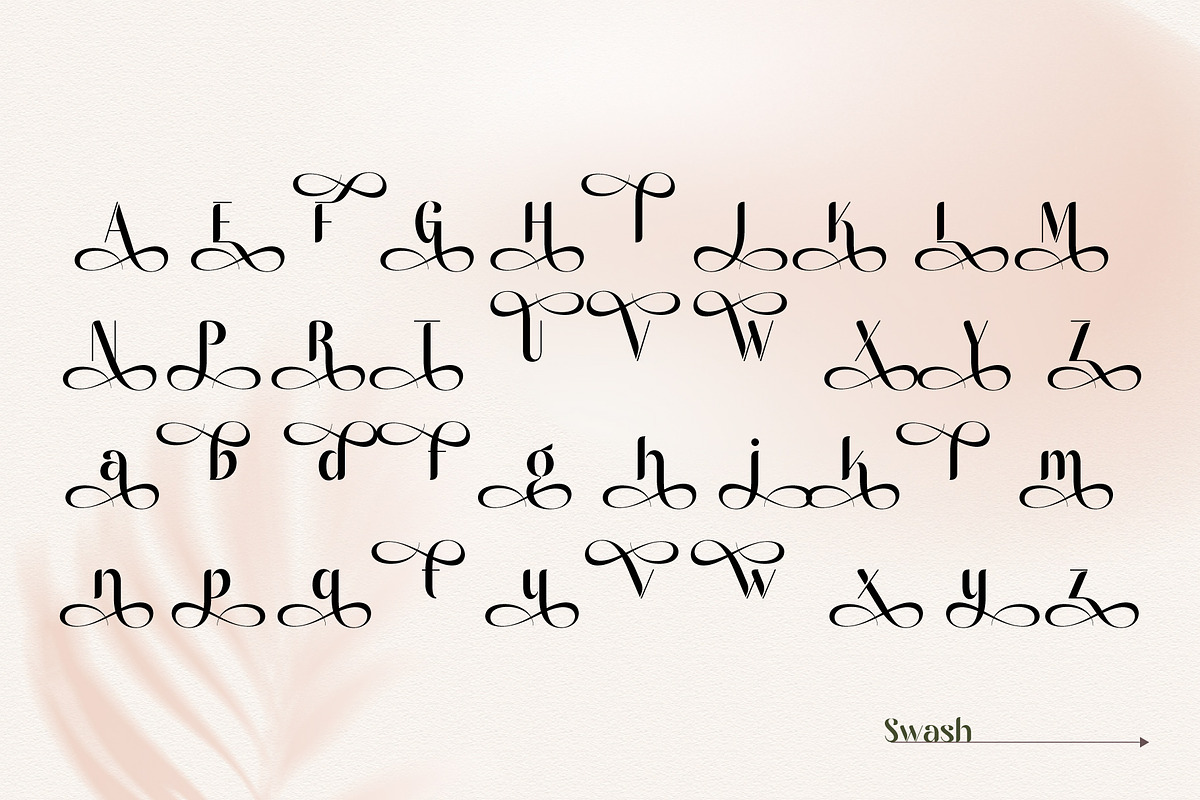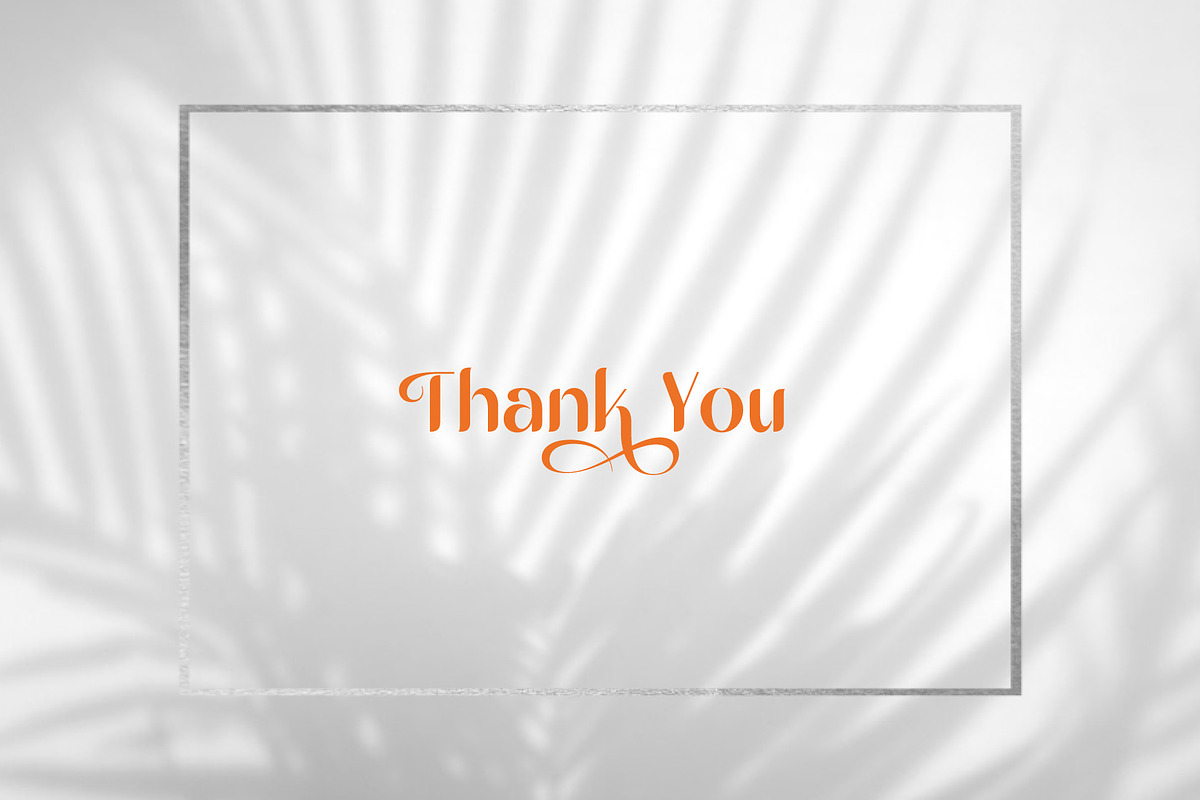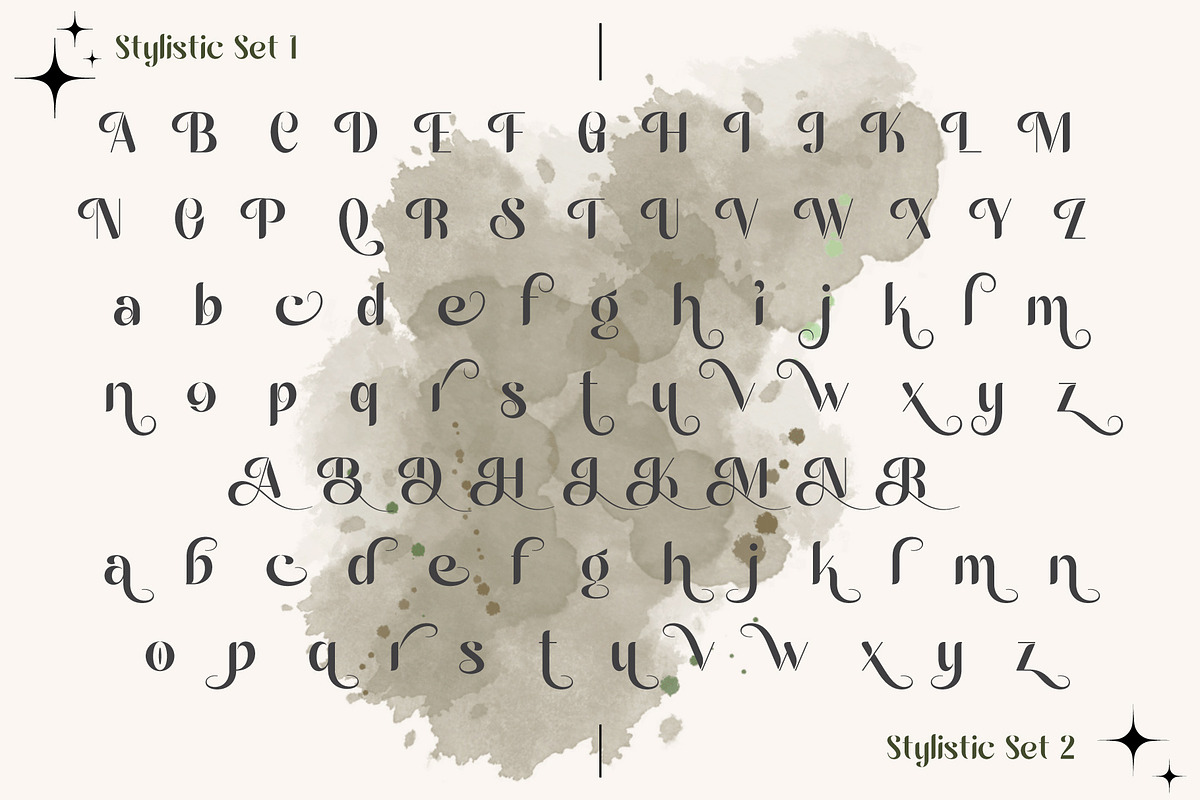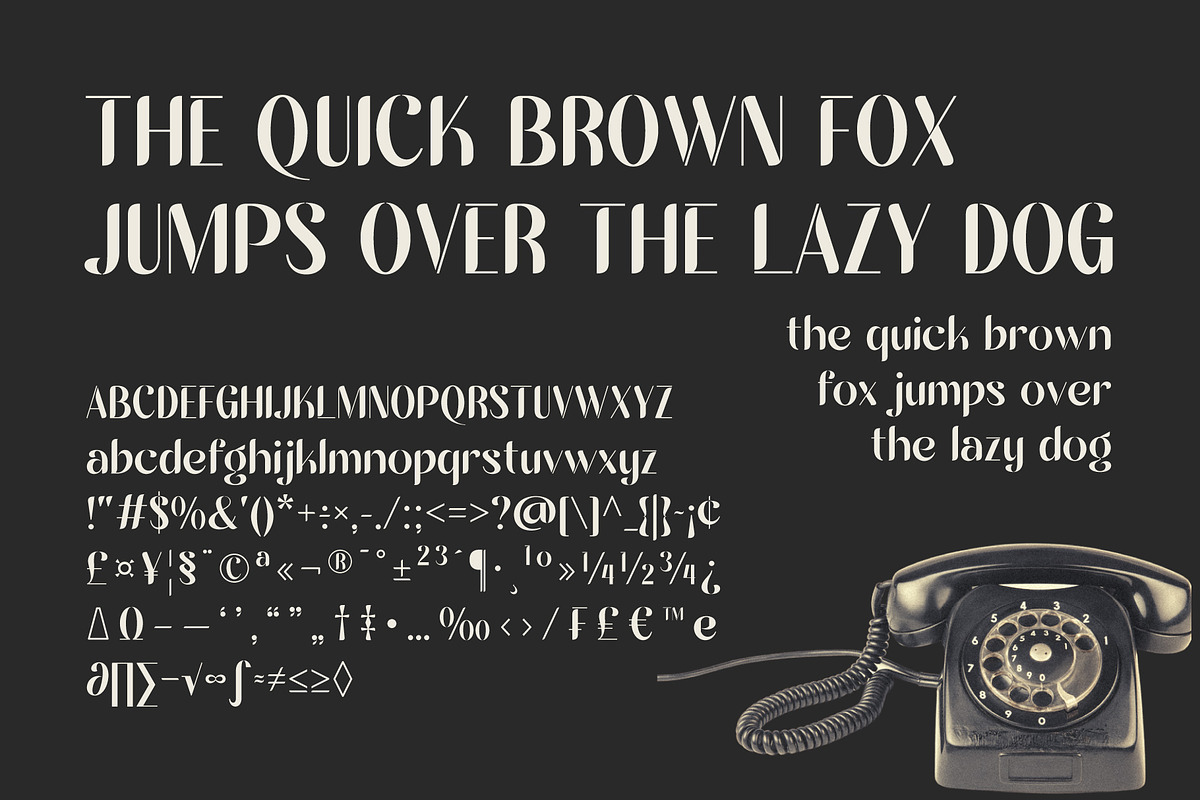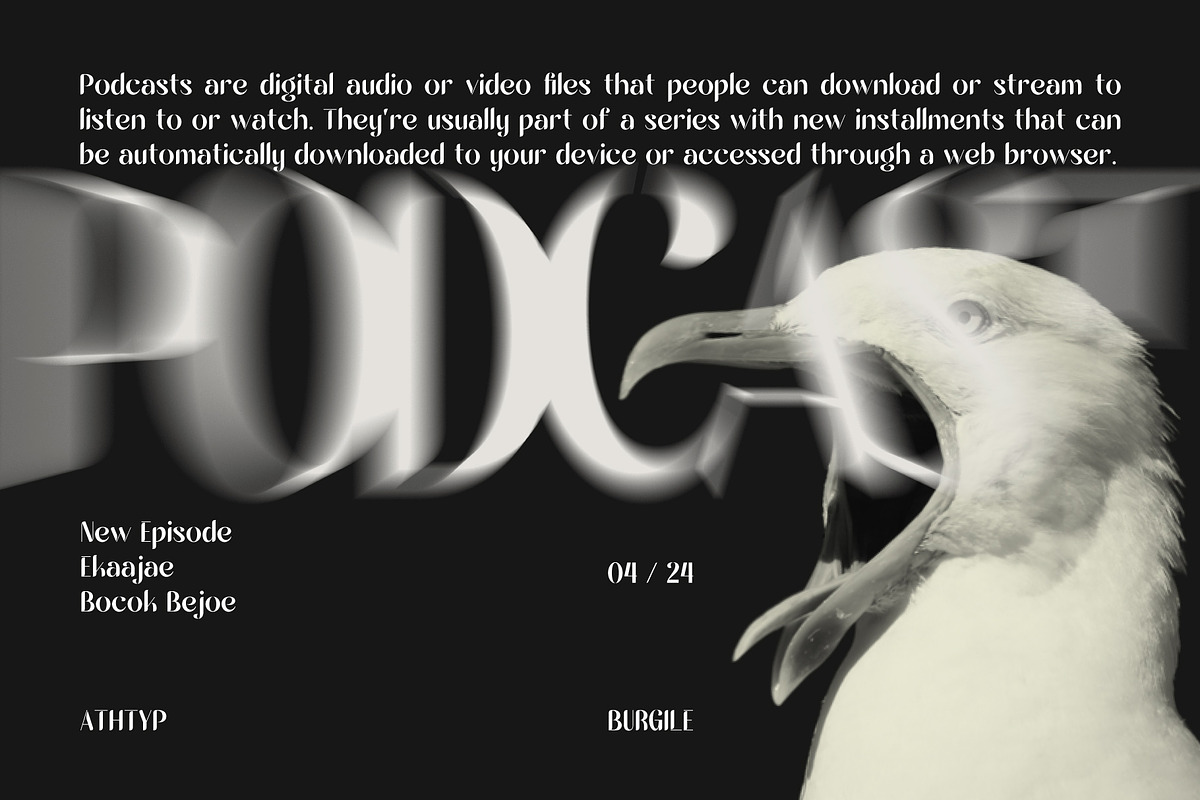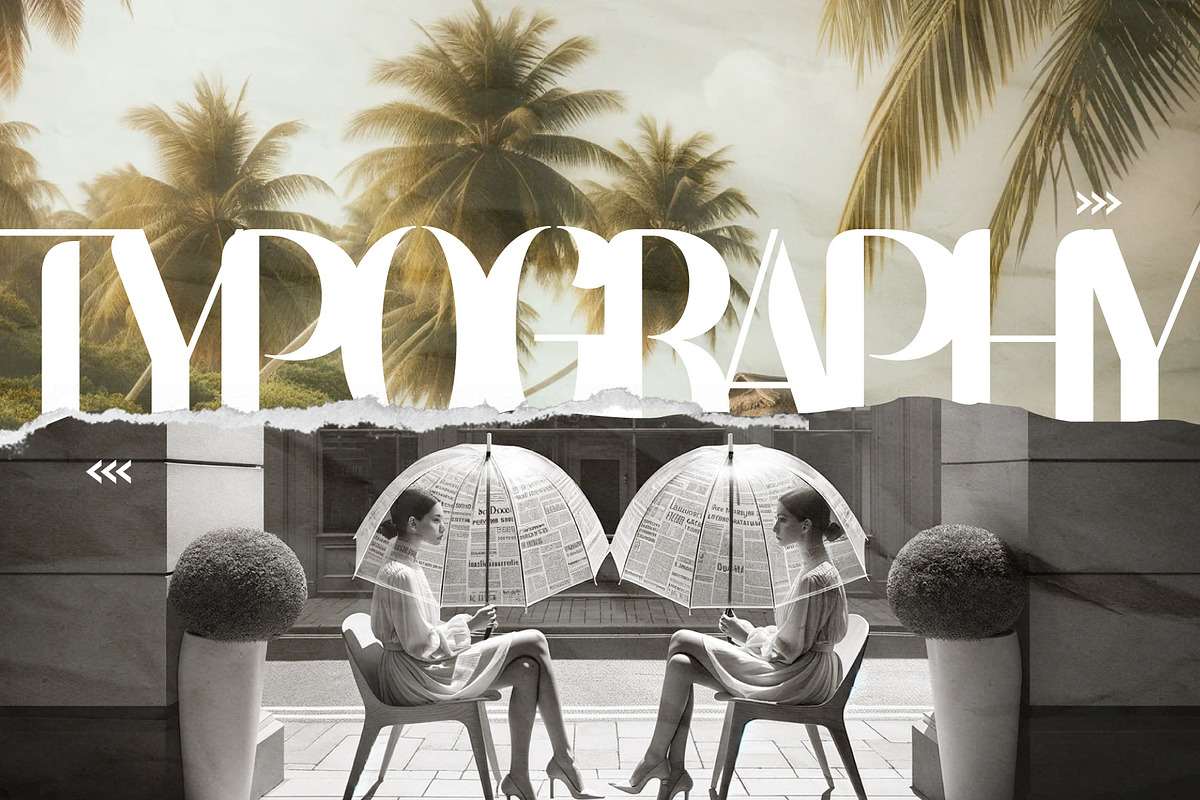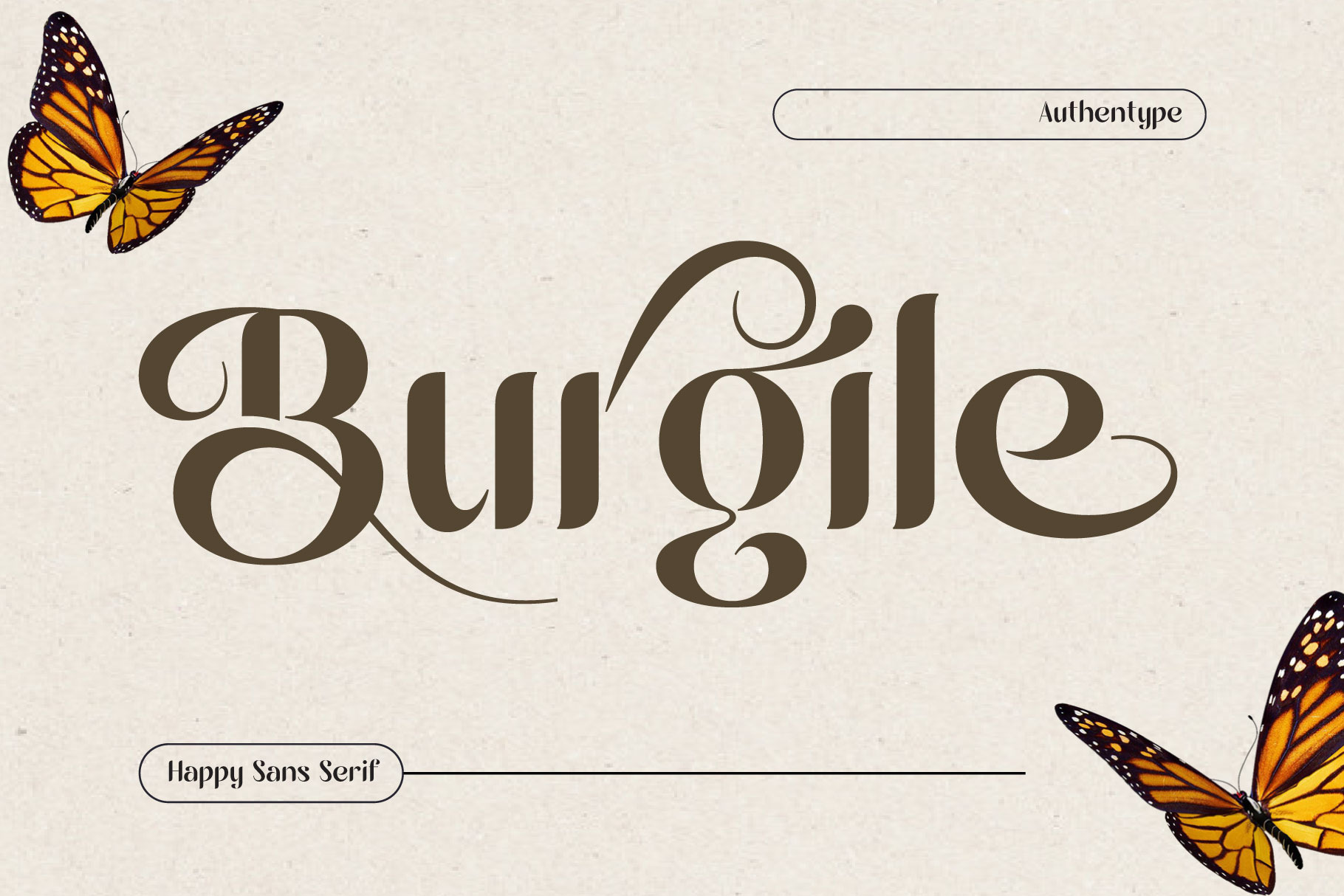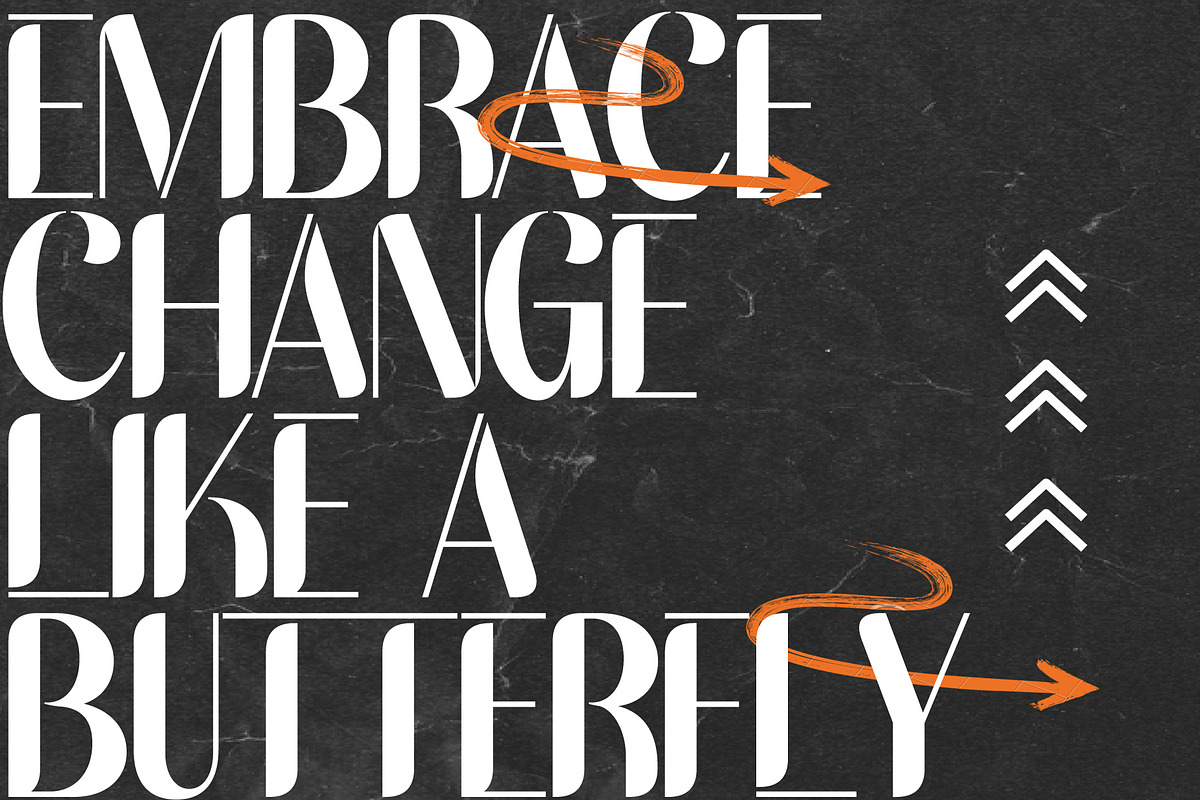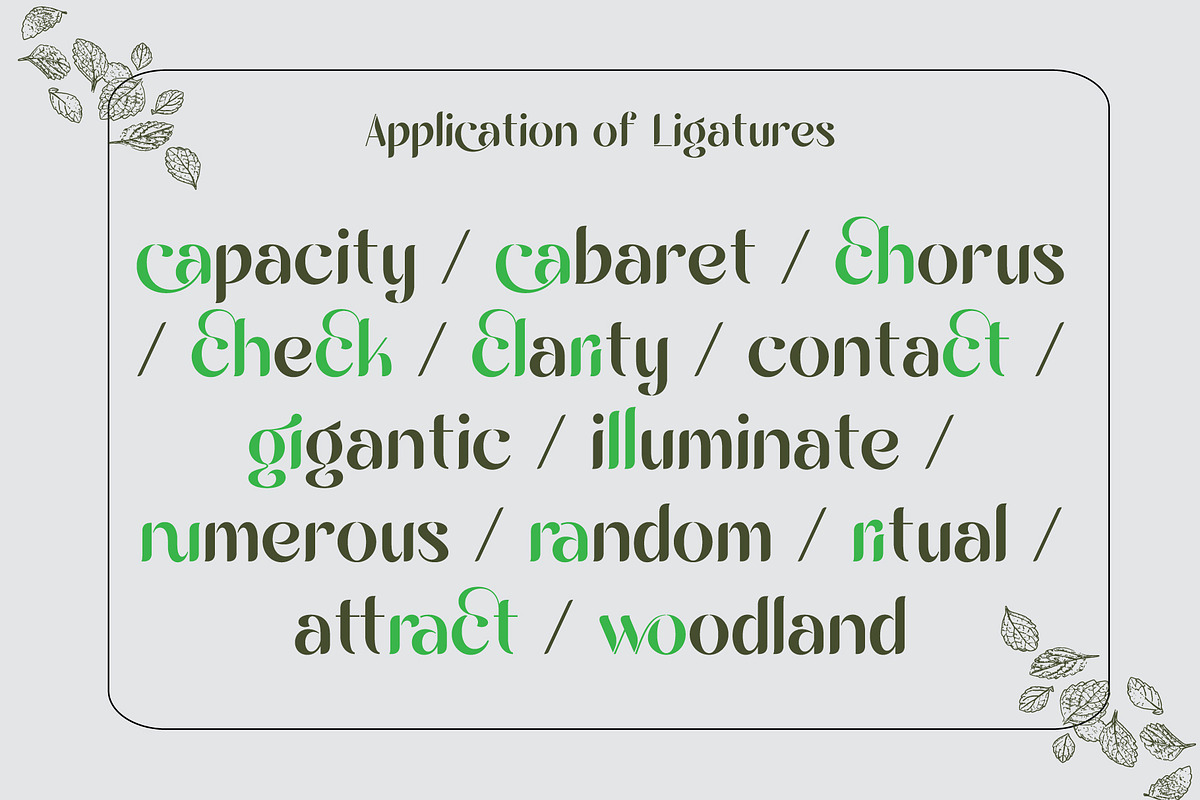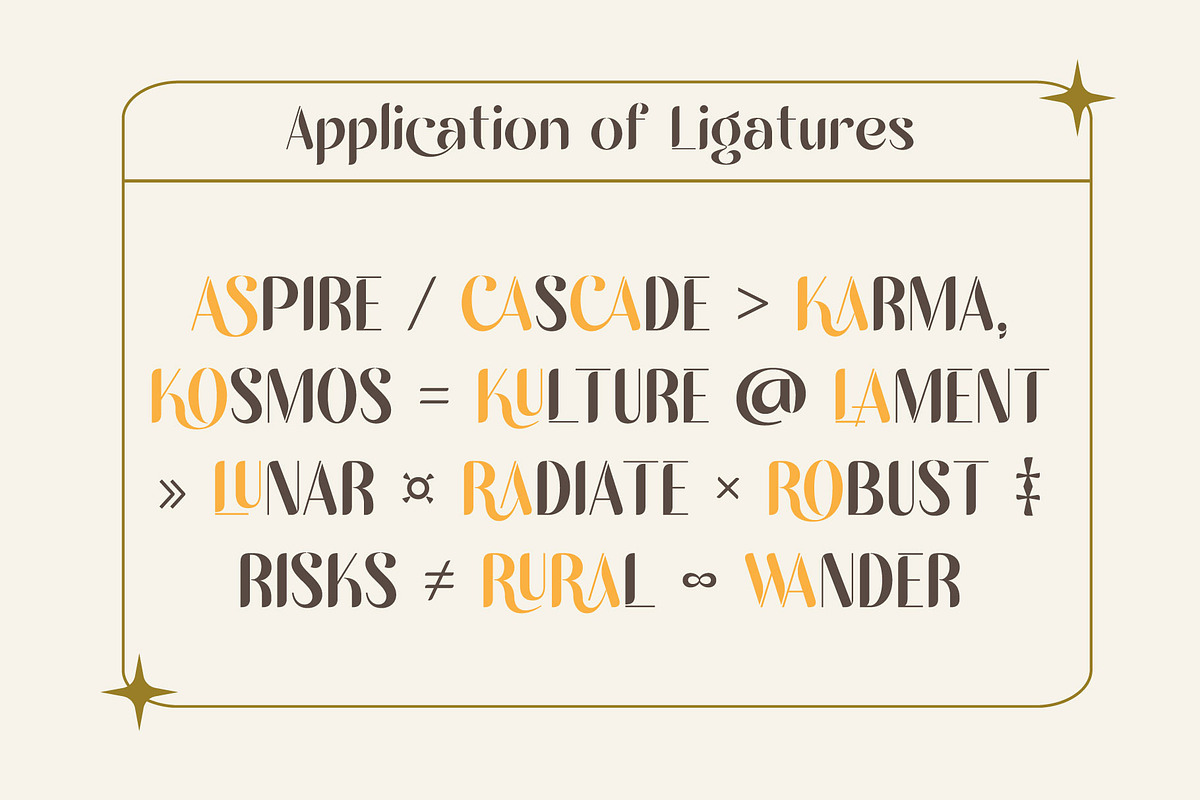
Burgile Happy Sans Serif Font
Burgile Happy Sans Serif" font is an exquisite and sophisticated choice for those seeking a blend of simplicity and elegance in their typographic projects. This beautiful sans serif font distinguishes itself with its clean lines and modern design, making it an ideal choice for a wide range of applications, from branding to editorial design.
One of the most charming aspects of Burgile Happy Sans Serif is its set of ligatures. These specially designed character combinations enhance the natural flow of text, creating seamless connections between letters that add a touch of bespoke craftsmanship to any written word.
In addition to ligatures, this font boasts an array of stylistic sets that allow for versatile design options. Whether you're looking for subtle variations to fit a specific mood or more dramatic changes for standout headings, these stylistic sets provide the flexibility to craft unique and captivating designs.
The font also includes a selection of swashes, adding a dash of flair and individuality to your projects. These ornamental strokes can be used to embellish capital letters, end words with a flourish, or add decorative elements to your layout, bringing a creative and personalized touch to every design.
Burgile Happy Sans Serif stands out for its rich character and adaptability. Its clear, approachable appearance is balanced by subtle details that reveal its depth and sophistication upon closer inspection. Whether for professional branding, engaging web design, or impactful editorial work, this font is designed to meet the needs of both seasoned designers and novices alike, providing a reliable yet distinctive choice for a multitude of creative endeavors.